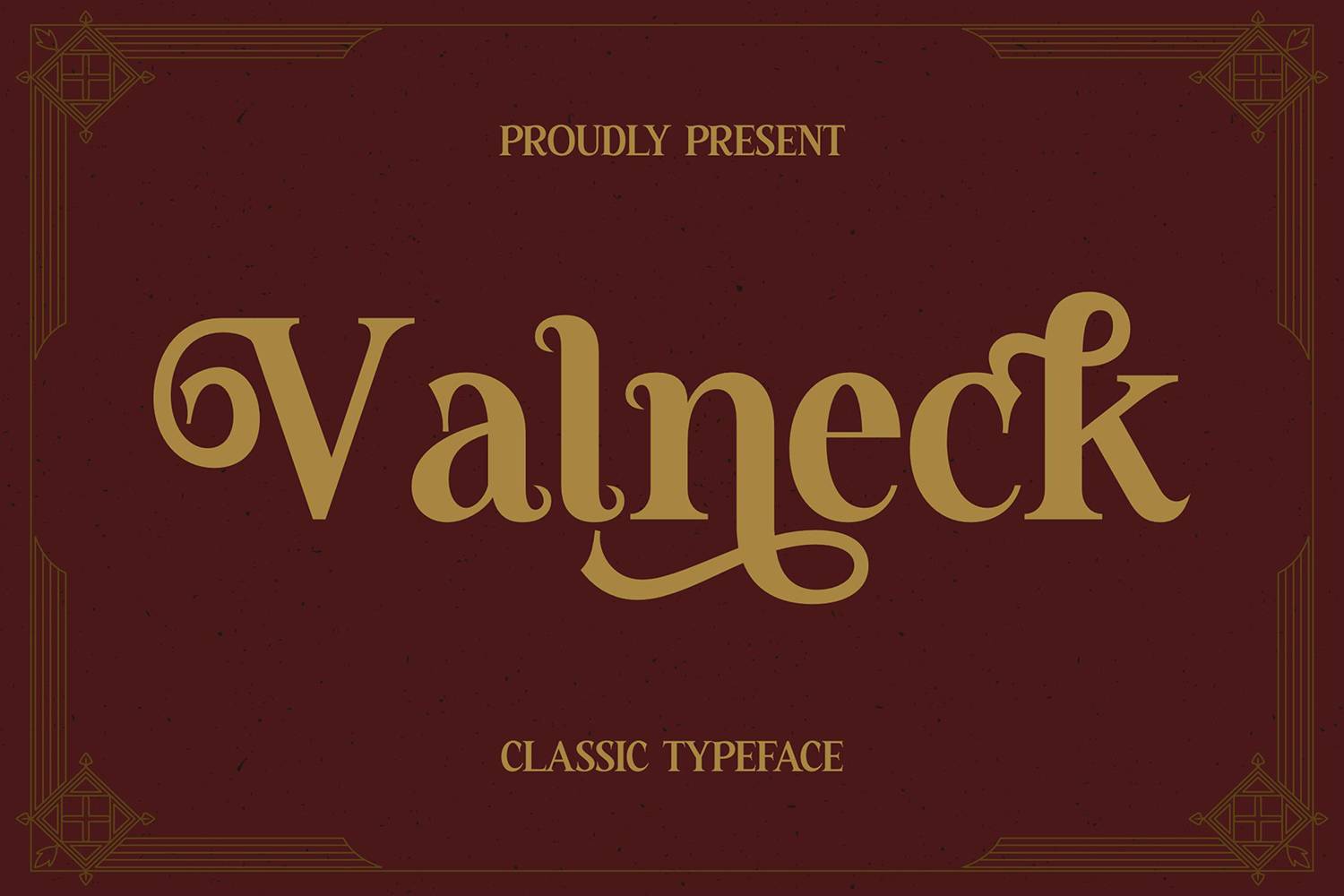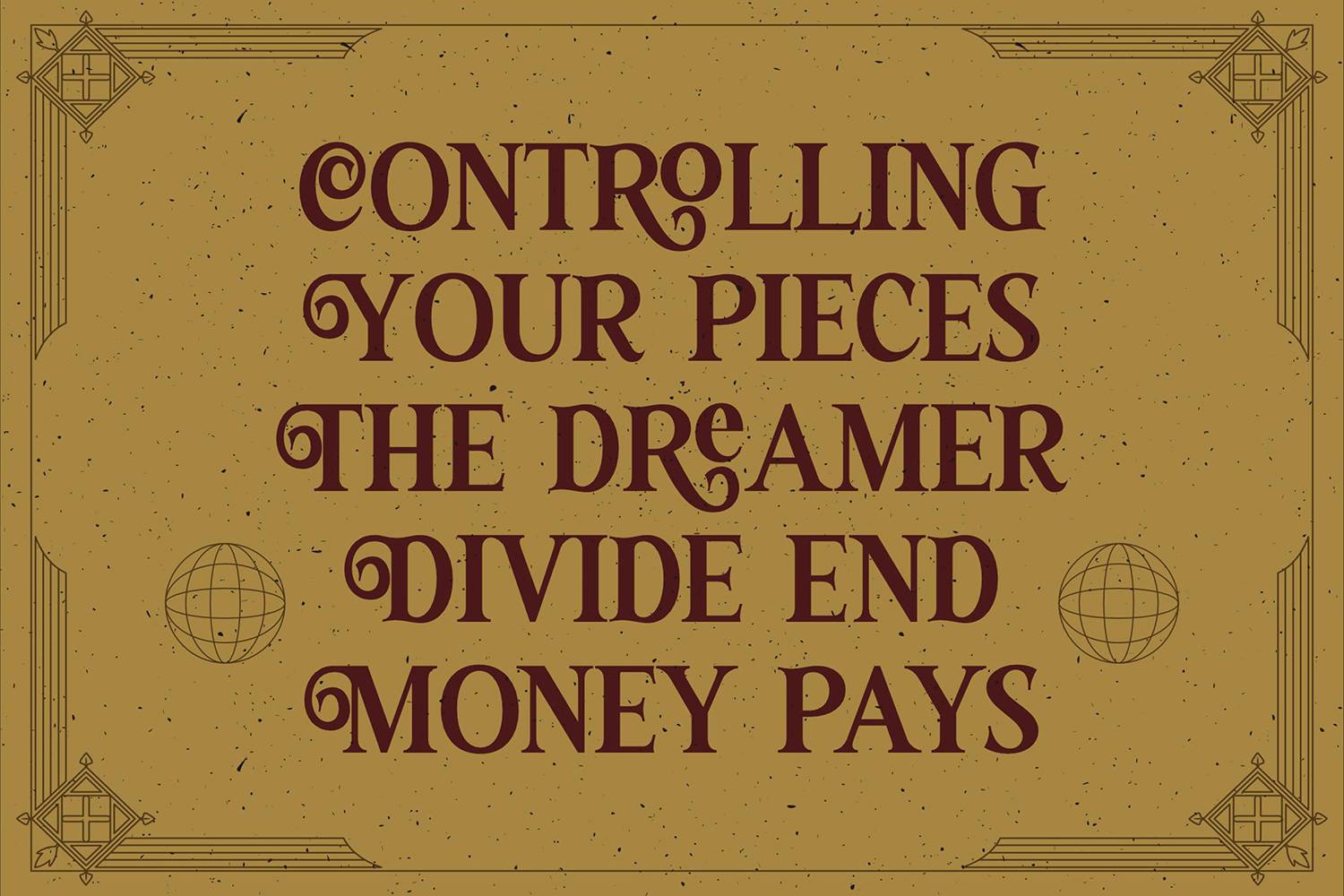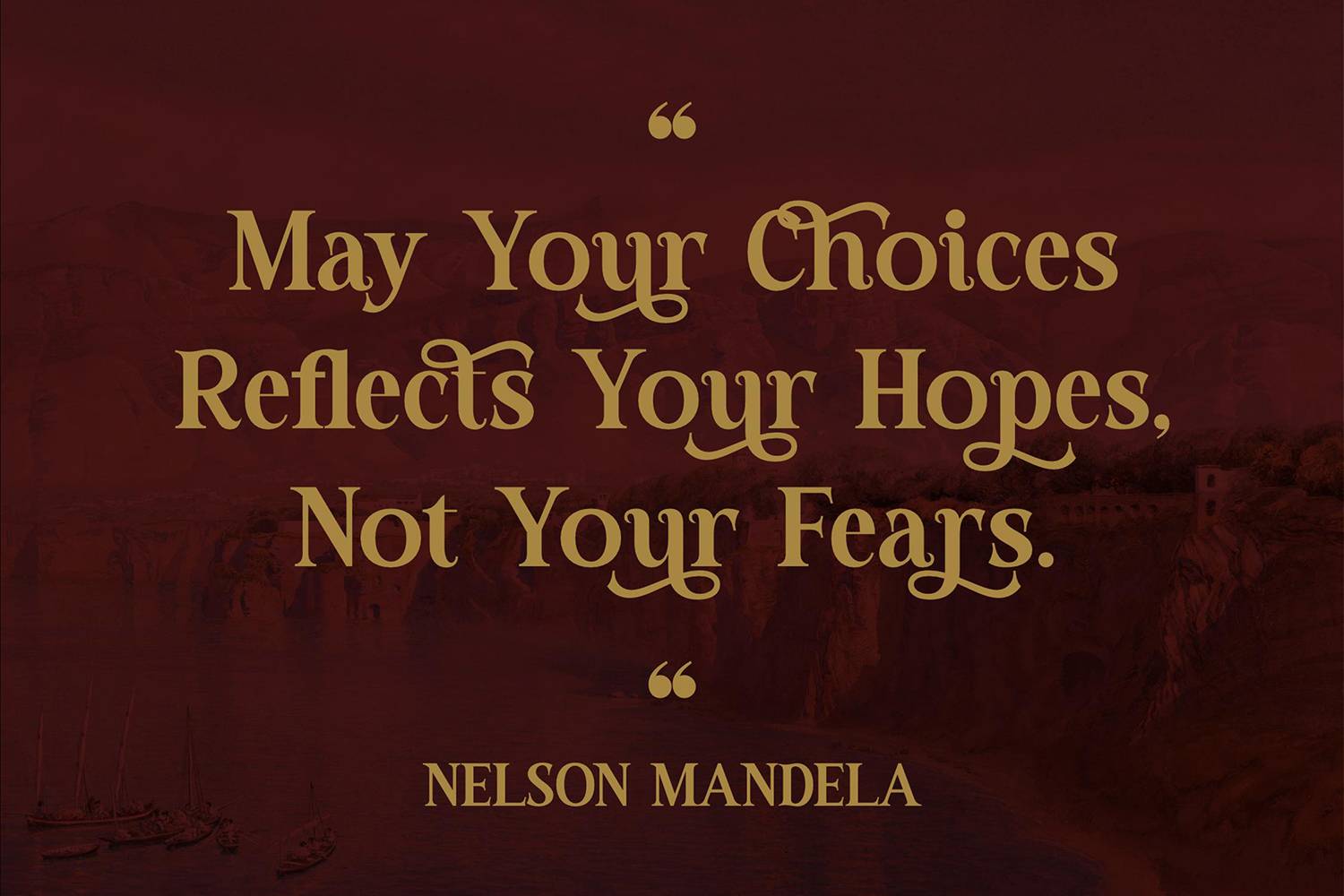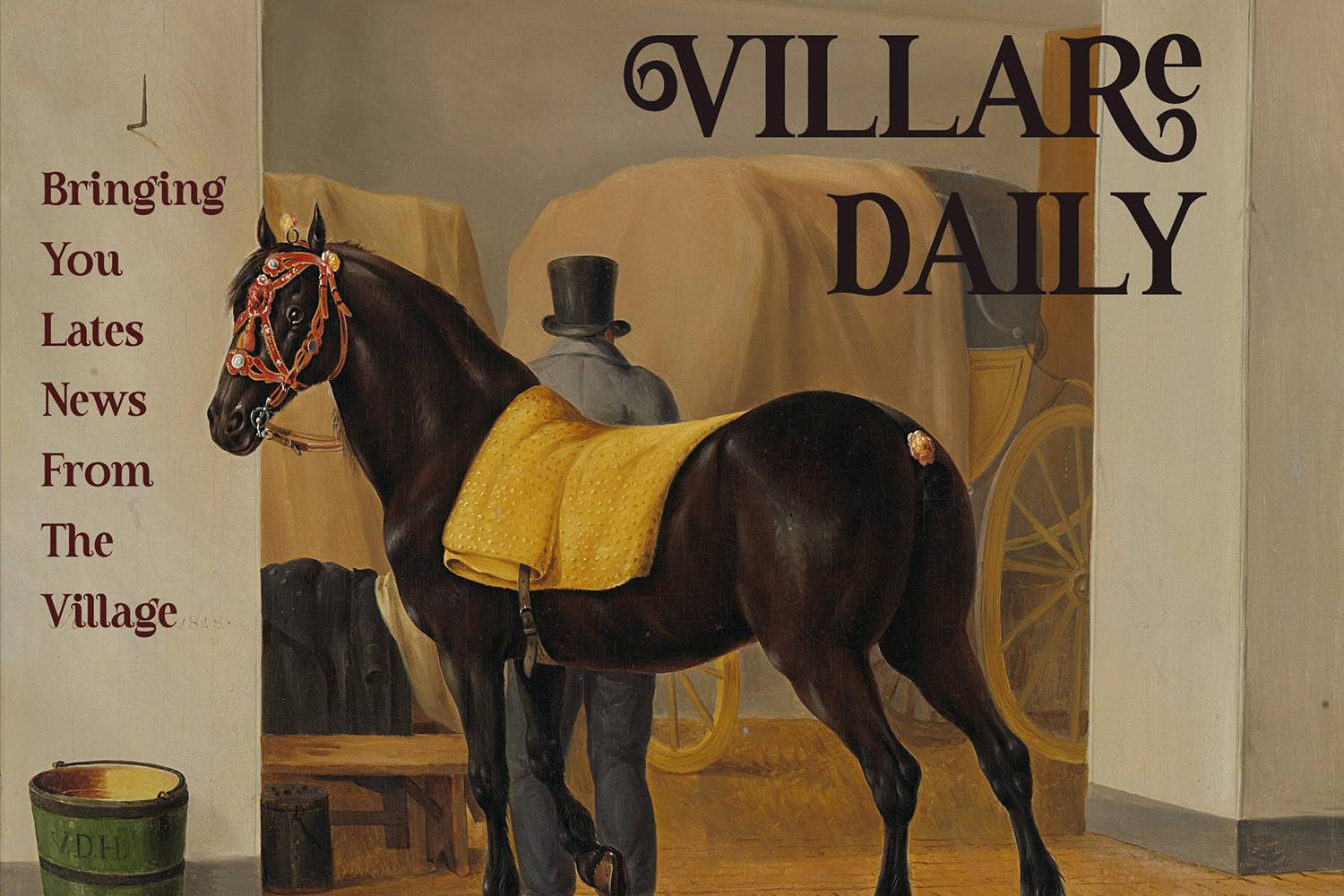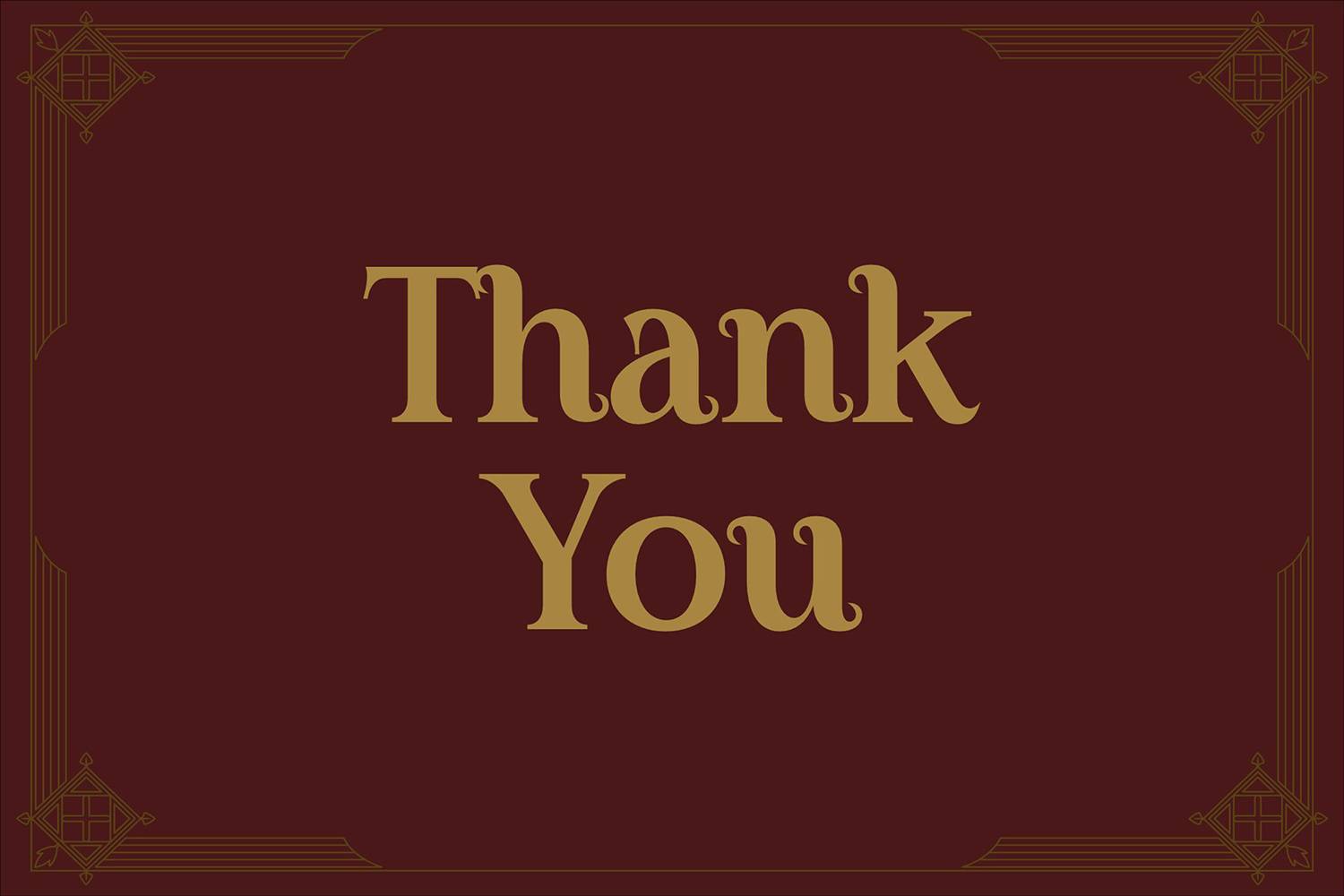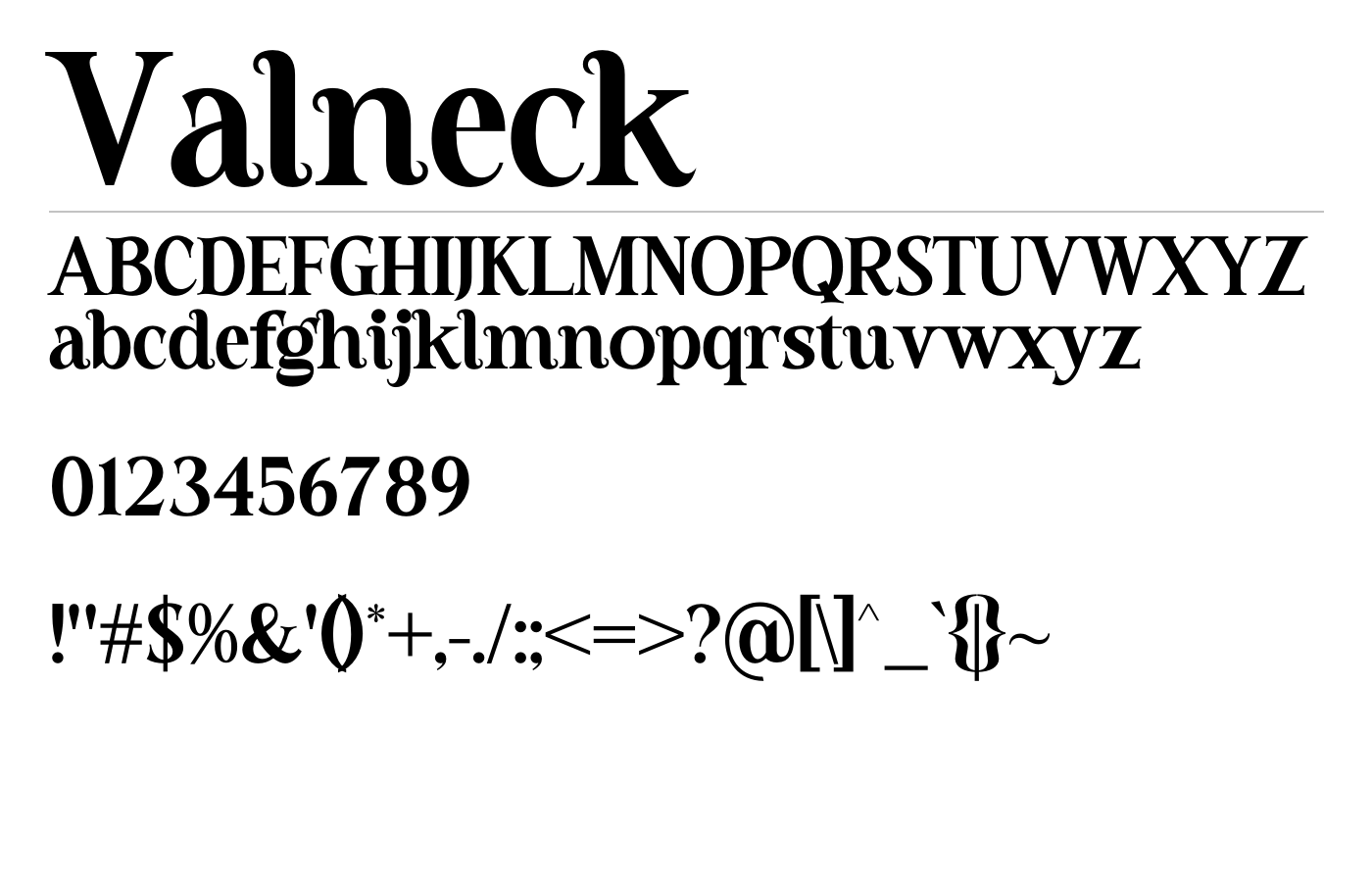
Valneck is a refined serif font with a classic, elegant feel, featuring high contrast between thick and thin strokes and gently bracketed serifs that add a touch of sophistication. Its tall, slightly condensed letterforms with distinctive details like the curved tail on the lowercase 'g' and the sharp, angled stroke on the 'k' make it ideal for luxury branding, editorial headlines, and formal invitations. This font balances readability with style, making it well-suited for projects that need a timeless, upscale appearance.
Valneck Font
About Valneck Font